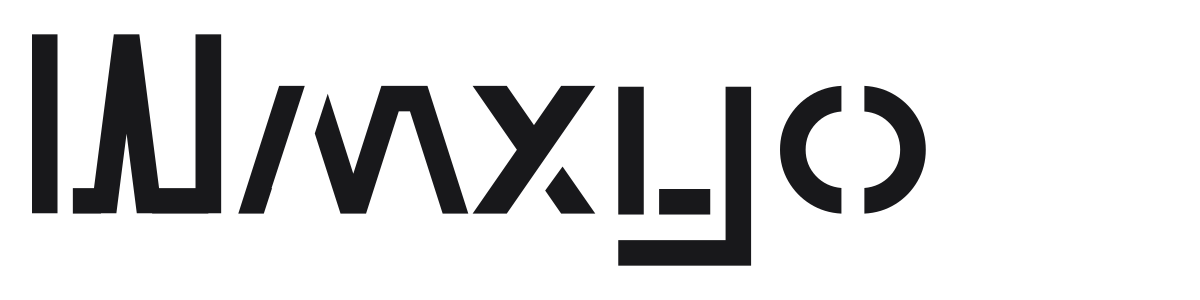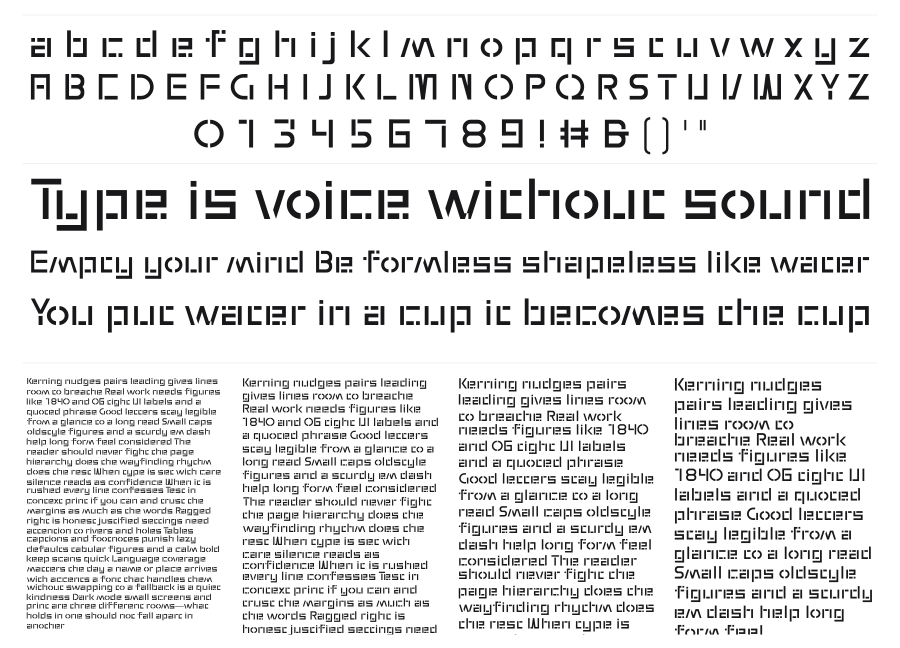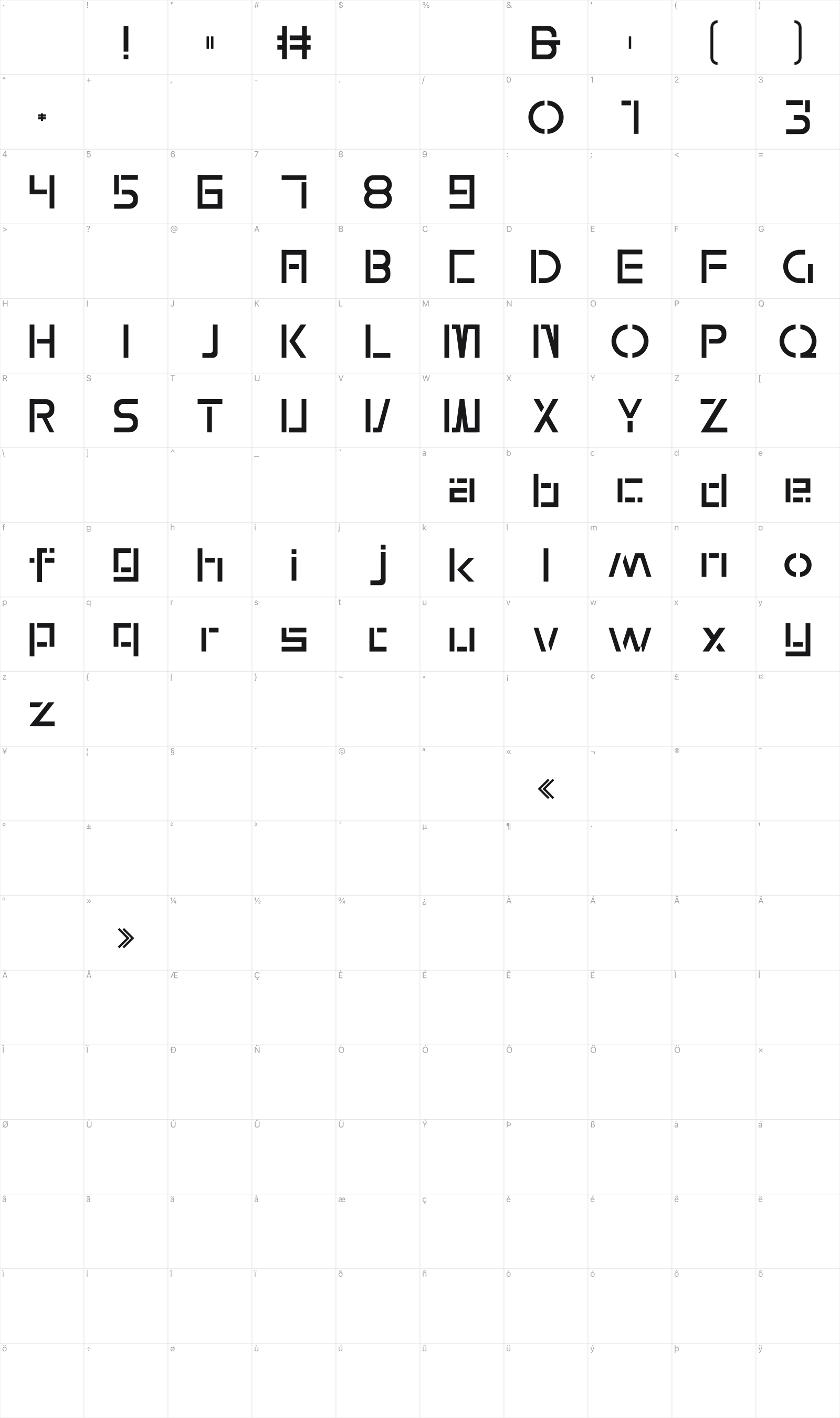
Wmxyo
WmxyoL is a geometric stencil sans built from squared, modular segments with sharp cut gaps that define every character. The construction is deliberate and grid-like, channeling military stenciling and industrial signage into a contemporary display face. It reads with authority at large sizes across posters, apparel, and tech branding.